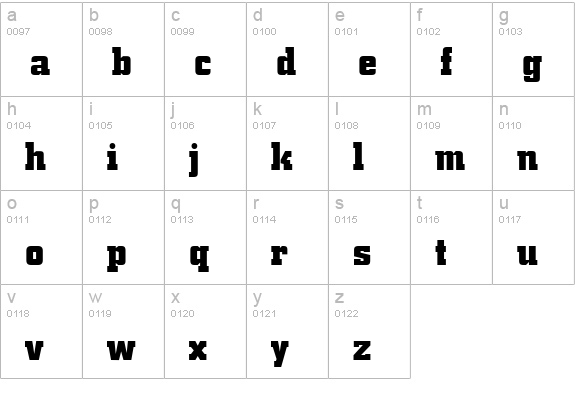
Borghs Normal is the standard, neutral variant in the Borghs typeface family \xE2\x80\x94 well suited to general body text, paragraphs, and standard typographic work.
Borghs Normal font is a modern and elegant typeface that exudes sophistication and versatility. With its clean lines and balanced proportions, this font is perfect for a wide range of design projects, from branding to editorial design. The timeless appeal of Borghs Normal font makes it a popular choice among designers looking for a classic yet contemporary typeface. What sets Borghs Normal font apart is its exceptional legibility and readability, making it ideal for both print and digital applications. Whether you're creating a logo, poster, website, or any other design project, this font will make your text stand out with its professional and polished appearance. The best part is that Borghs Normal font is available for free download at FontsMarket.com. So you can easily access this high-quality typeface and use it in your projects without any cost. Don't miss out on the opportunity to enhance your designs with the timeless beauty of Borghs Normal font. Download it now and elevate your typography game to the next level!